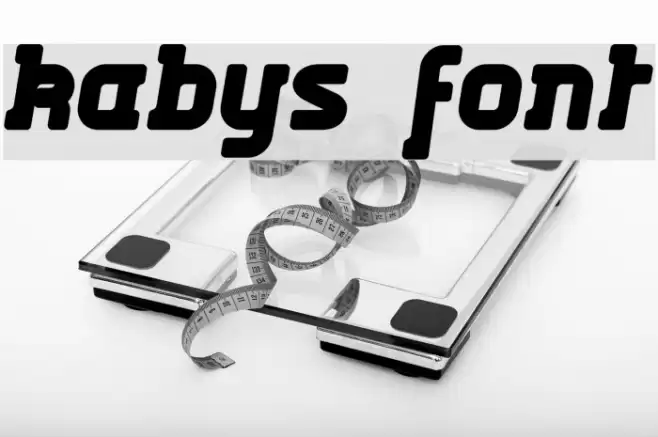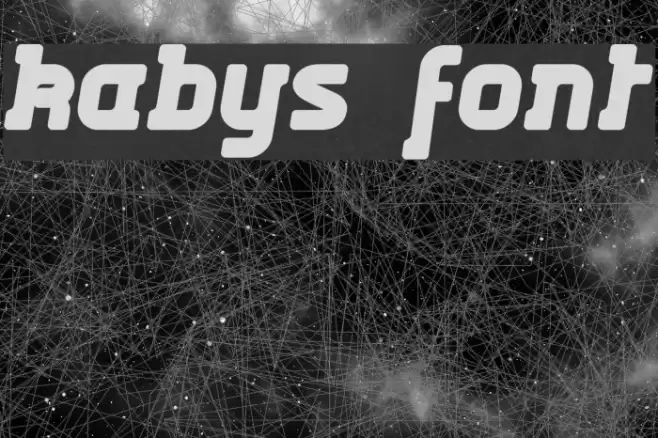
Kabys Font
Kabys Description
This font features a bold and rounded style with a modern and playful appearance. The characters are slightly condensed, giving it a compact look. The strokes are thick and consistent, providing a strong visual impact. The rounded edges soften the overall feel, making it approachable and friendly. The uniformity in the letterforms ensures readability while maintaining a unique character. This font is well-suited for projects that require a bold statement with a touch of fun and creativity.
A bold, rounded, and modern font with a playful and approachable style from Uncategorized fonts.